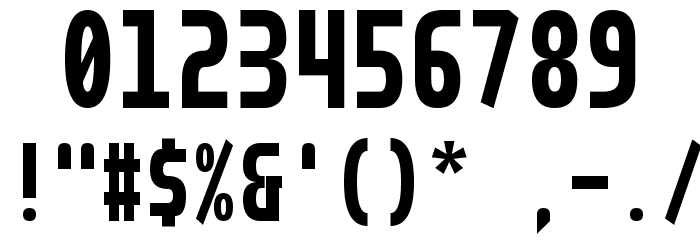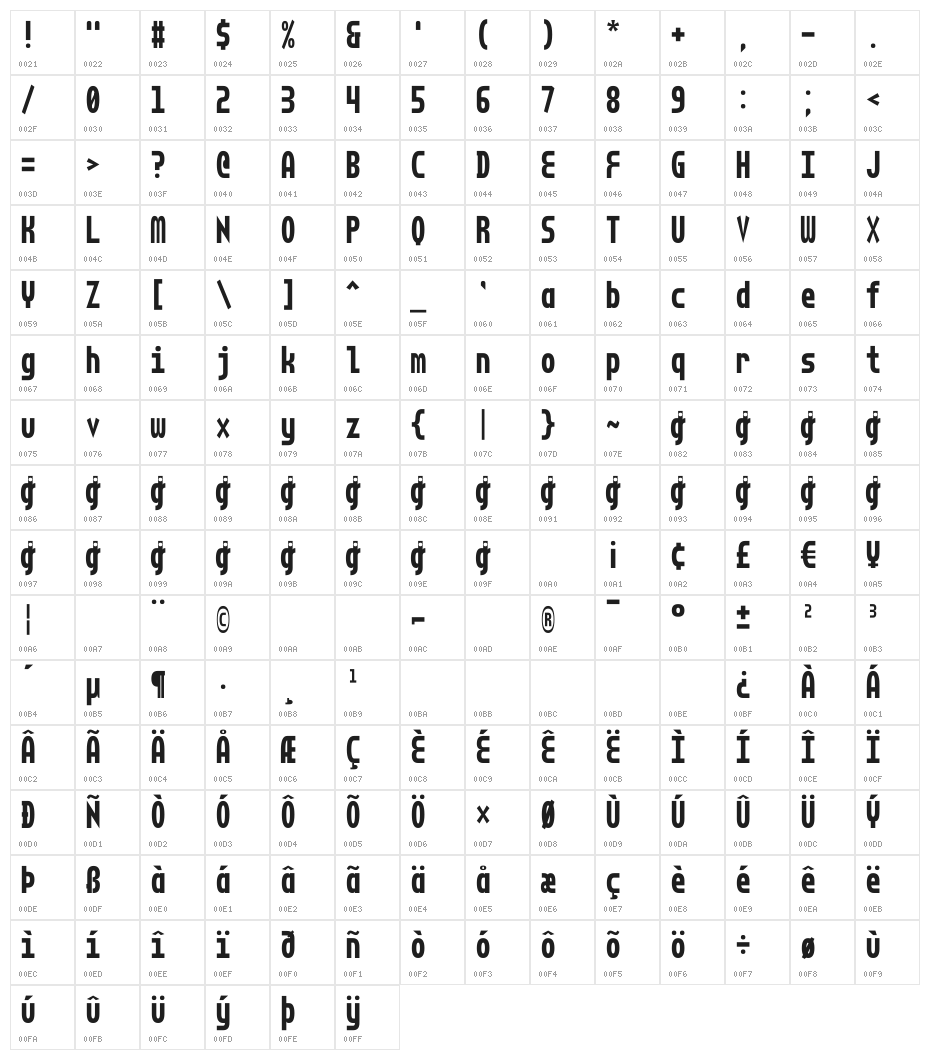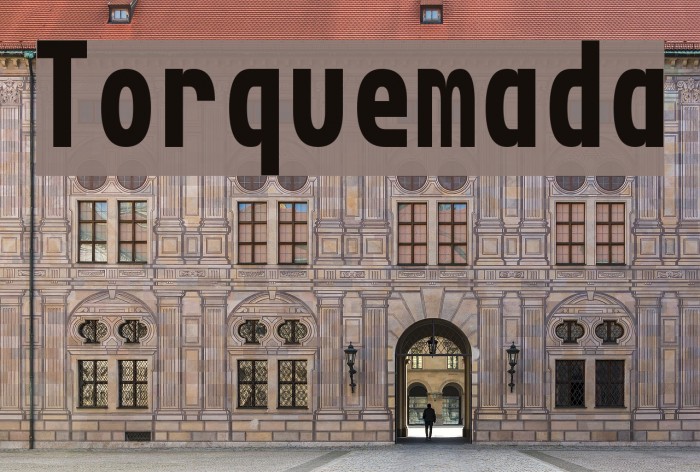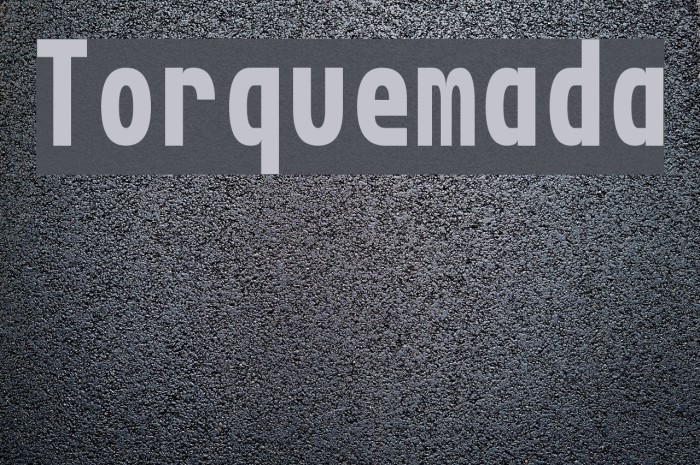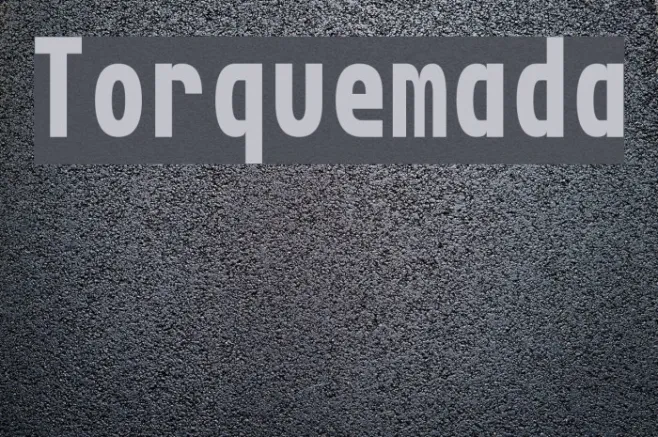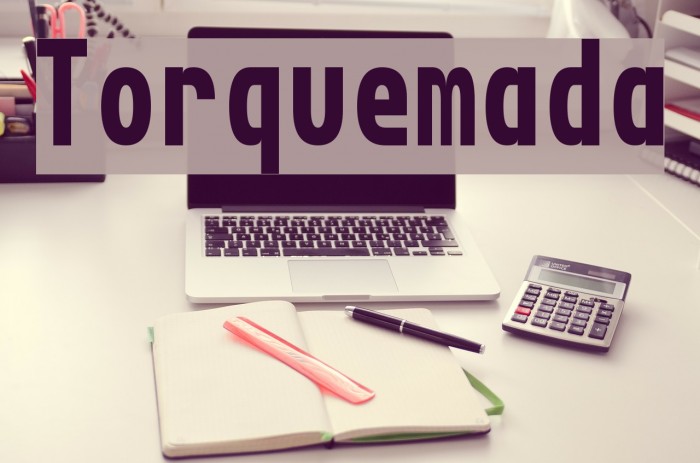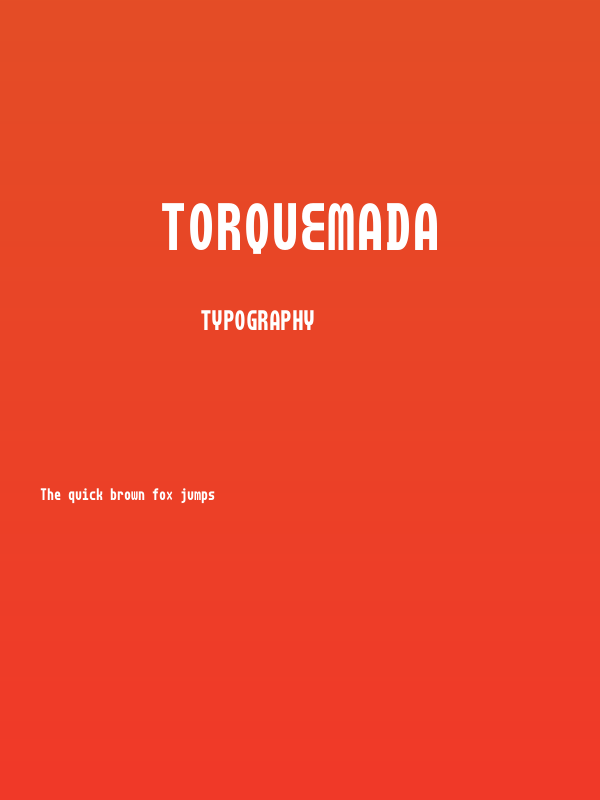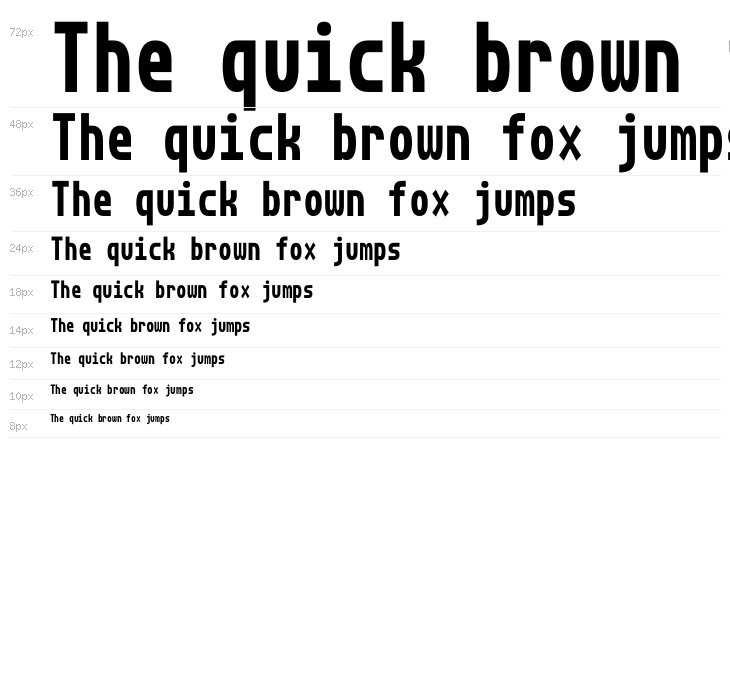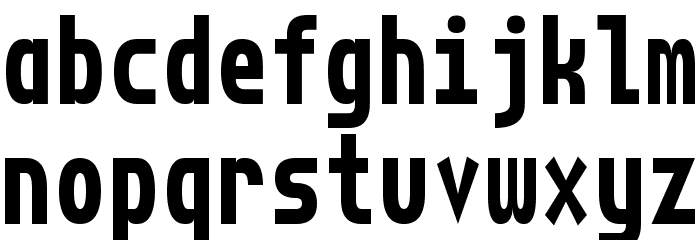
Torquemada Font
Torquemada Description
This font features a bold and robust design with a strong geometric structure. The characters are uniformly thick, giving it a solid and impactful appearance. The uppercase letters are tall and commanding, while the lowercase letters maintain a consistent height, ensuring readability. The numbers are clear and distinct, matching the bold style of the alphabet. Special characters are well-defined, complementing the overall aesthetic. This font's design is both modern and slightly retro, making it versatile for various applications.